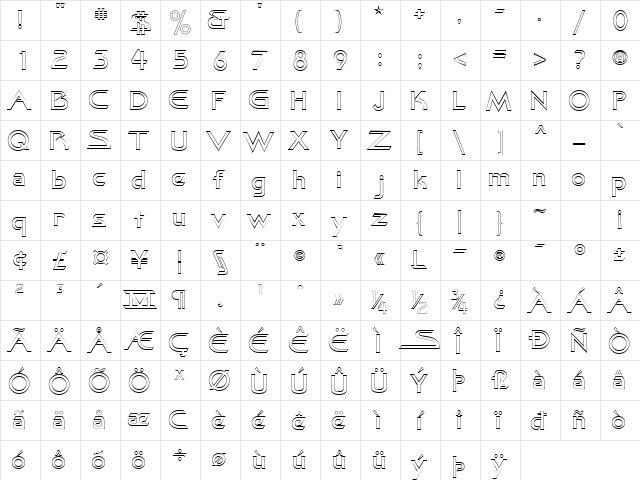
Khan Outline Font Preview
Khan Outline
Design Context for Khan Typeface
Khan brings ornamental detail and strong personality to headlines and identities, where visual impact matters more than quiet functionality.
Font Pairing: Pair with a clean neutral sans-serif for body copy to let Khan's character lead without overwhelming the composition.
Pro Tip: Use Khan exclusively at display sizes — it was designed to be seen, not read at length. Let a neutral companion handle body copy.